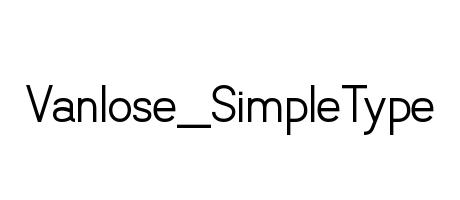
Vanlose_SimpleType
Vanlose_SimpleType: A clean, understated typeface, Vanlose_SimpleType exudes a quiet confidence. Its straightforward design offers readability without sacrificing style. Slightly condensed, it''s perfect for both body text and short, impactful headings, delivering a modern, minimalist feel.